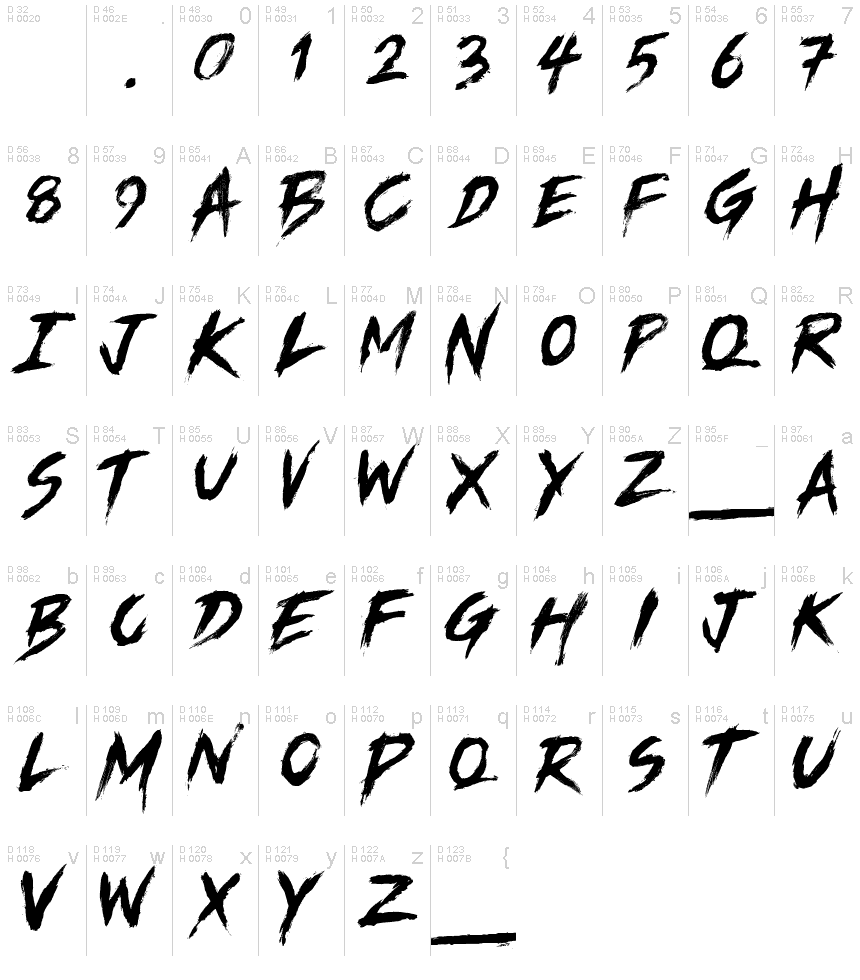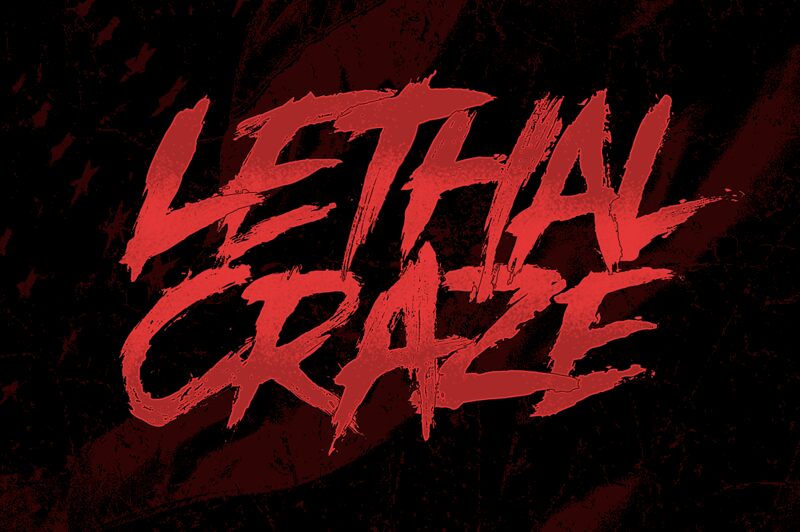
Get ready to make a bold statement with Lethal Craze, the newest script font from The Branded Quotes! Perfect for designs that need a little edge, this trash-style font is sure to make an impact. With its bold weight and cool vibe, Lethal Craze is ideal for projects ranging from music posters and album covers to social media graphics and edgy brand identities. Dare to be different with Lethal Craze - the script font that's not afraid to break the rules.
Lethal Craze is a semi-dry brush font that expresses that 70's horror movie posters. It suits well with that pop-art and comics style of artwork. Every glyph is randomly applied with a real fabric ink using a flat brush so it will produce that realistic hand-brushed output. Now keep that design straightforward and intriguing!
Features: Basic Alphabet, Multilingual Support, Complete Punctuations.